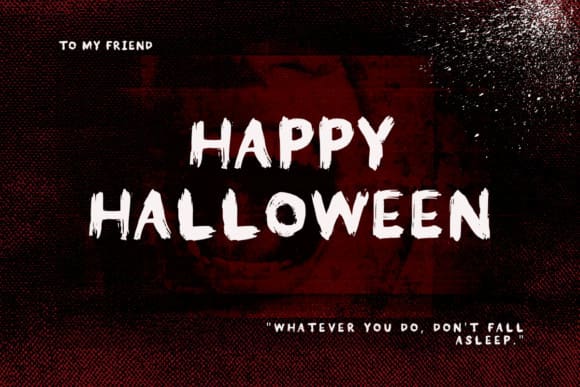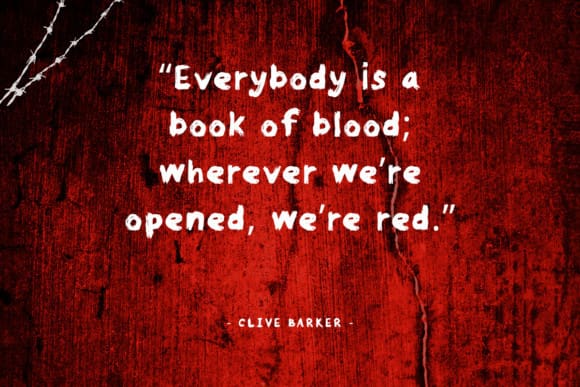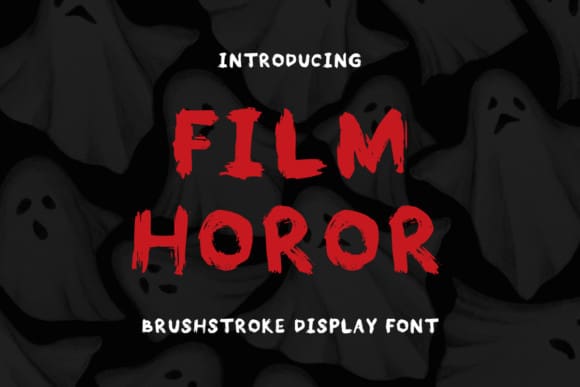
Film Horor Font
Film Horor Font is a distinctive, bold, and edgy display font inspired by the spine-tingling and eerie vibes of the horror movie genre. Whether you’re designing a poster for a scary movie or creating a creepy social media post, FilmHoror is the perfect font to convey your message with its chilling and haunting style. So what are you waiting for? Add Film Horor to your font library today and take your designs to the next level with its bold, eerie brushstroke style!